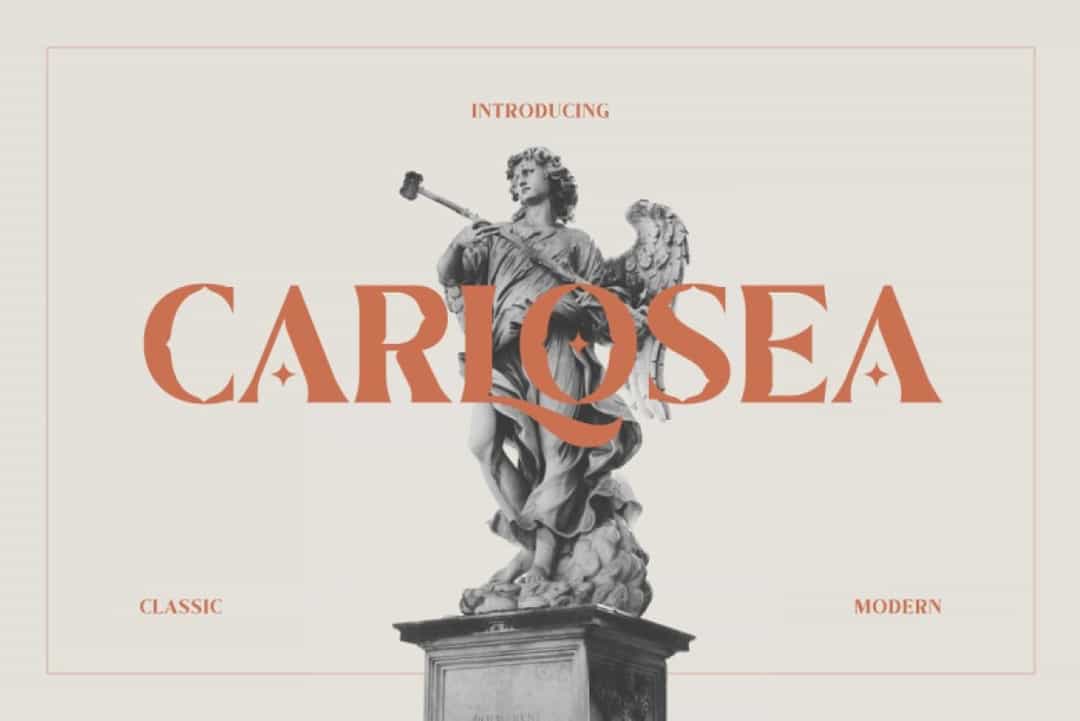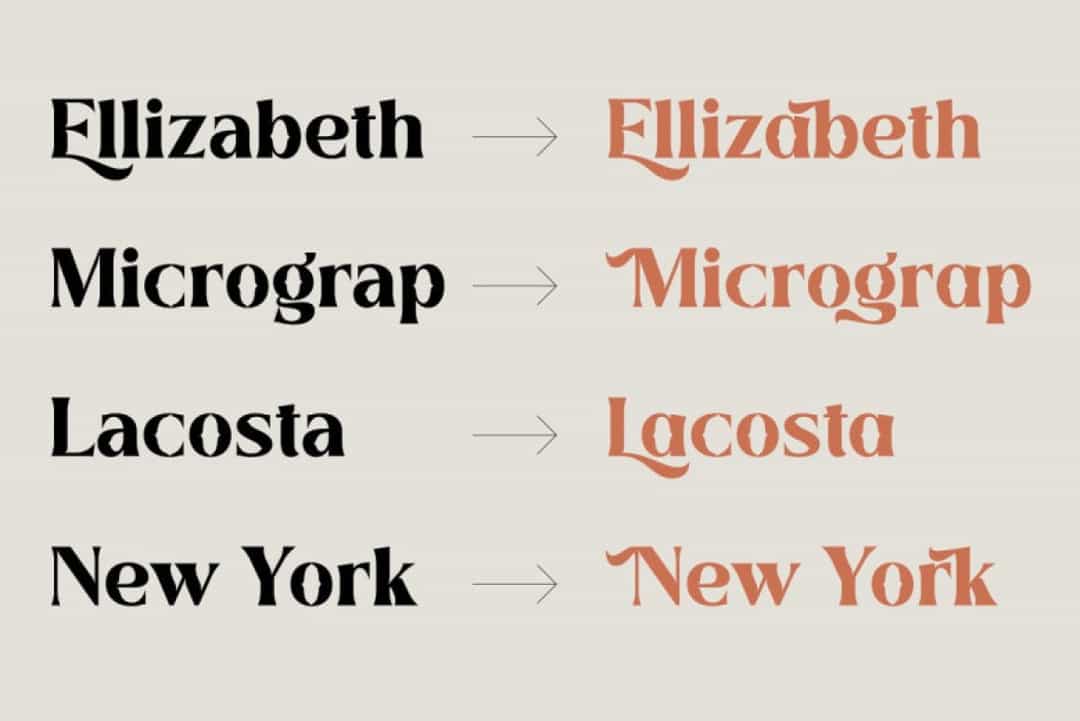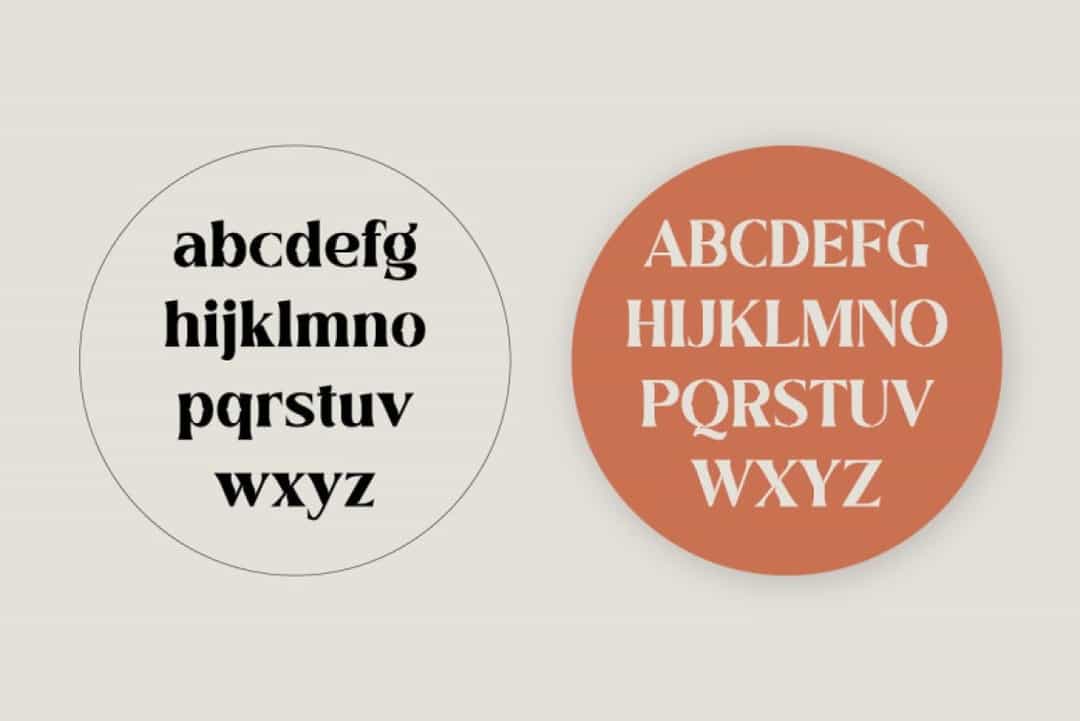
Carlosea is an elegant and bold lower and upper cases serif typeface that looks stunning both small and large settings. Carlosea can be used for various projects such as logos wedding designs as well as ads social media posts packaging product designs labels watermark invitations or any other task you need completed.